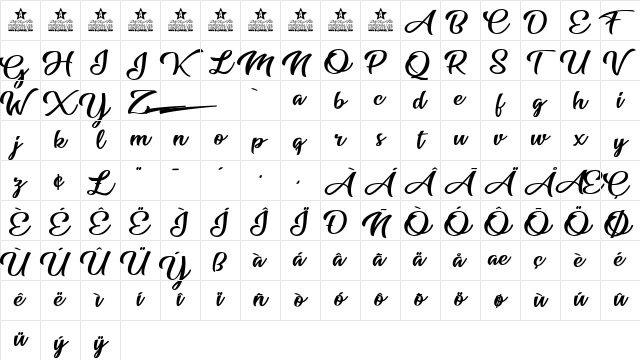
Star Light Personal Use Regular Free Font
Star Light Personal Use Regular
Foundry: Billy argel
Designer: Billy Argel
Design Context for Star Light Personal Use
Star Light Personal Use is a composed and adaptable typeface that performs quietly and consistently across a wide range of design contexts. Its slender proportions lend an understated elegance to any composition.